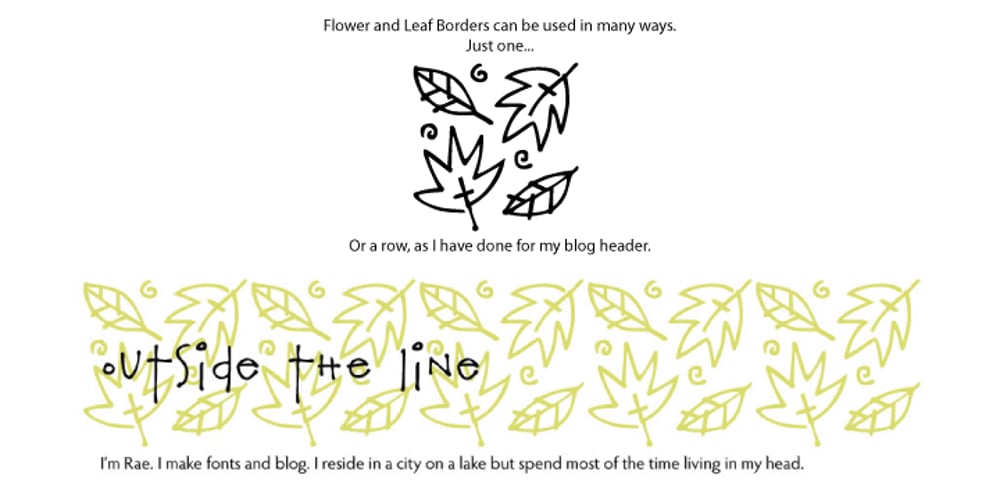
Flower And Leaf Borders
Flower And Leaf Borders font
Flower And Leaf Borders Font Family was designed by Rae Kaiser and published by Outside the Line. Flower And Leaf Borders contains 1 styles and family package options. 30 illustrations of flowers and leaves that can be used alone, in a row, or to make a pattern or border. This simple-to-use witty font is perfect to add some punch to your newsletters, invitations or scrapbooking projects. Outside the Line also has hand drawn alphabet fonts that work nicely with these illustrations.